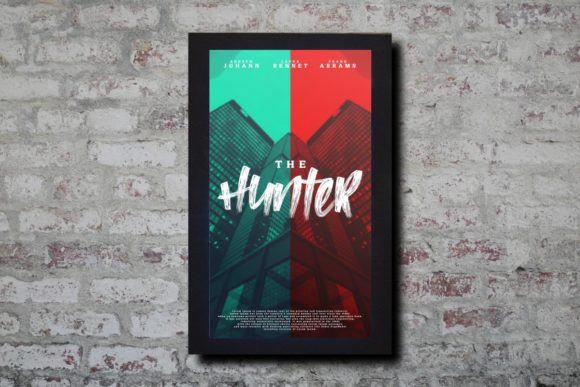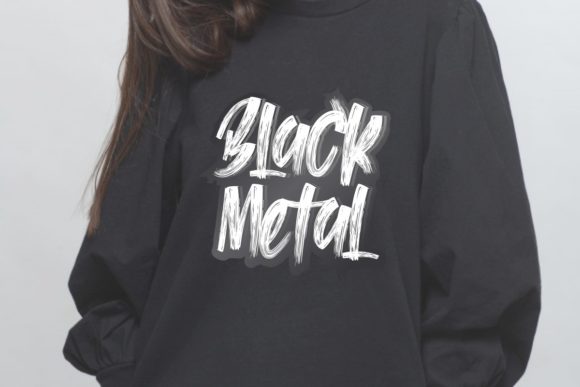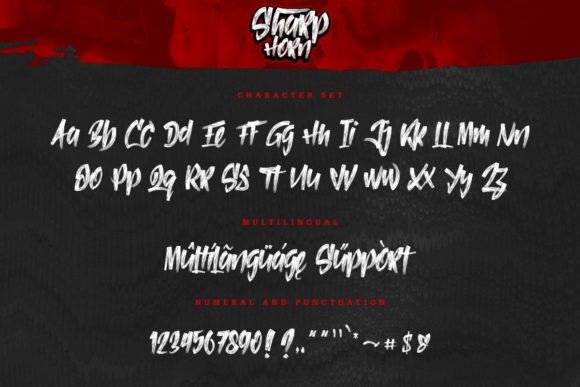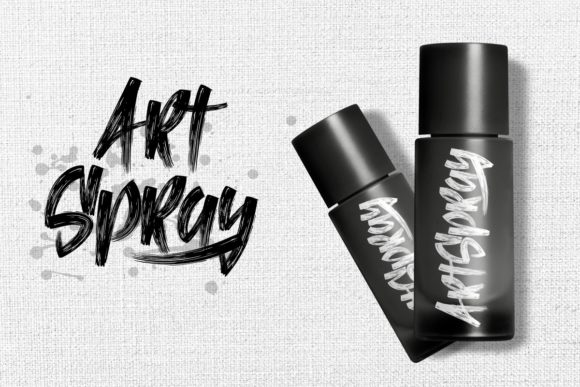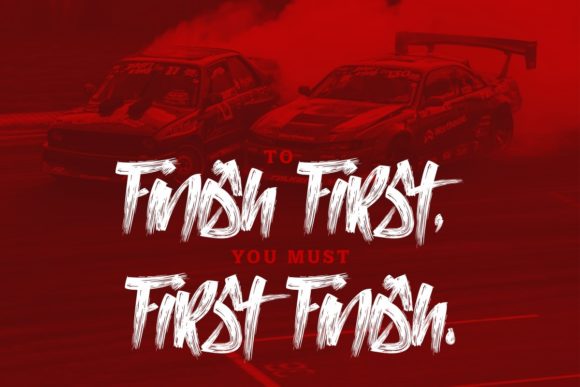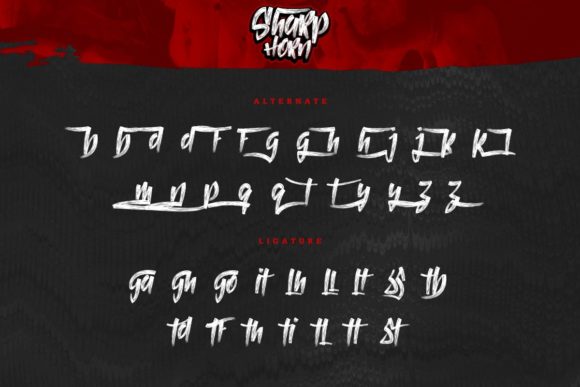
Introduction to SharpHorn Font Font
Fonts play a crucial role in design, and the SharpHorn Font font is a typeface that brings both character and versatility to any project. Whether you’re working on a branding project, a website, or a print design, the SharpHorn Font font offers a unique style that can elevate your work.
SharpHorn is a cool, brushed and urban styled display font.
It is PUA encoded which means you can access all glyphs and swashes with ease Add it confidently to your favorite creations and let yourself be amazed by the outcome generated.
Key Features of SharpHorn Font Font
Why Choose SharpHorn Font Font?
The SharpHorn Font font is more than just a typeface – it’s a design tool that helps you communicate your message with style and clarity. Its unique character set and versatile design make it suitable for a wide range of applications, from elegant invitations to bold headlines.
With its carefully crafted letterforms and balanced proportions, the SharpHorn Font font ensures readability and visual appeal across all mediums.
What makes SharpHorn Font font special?
The SharpHorn Font font stands out with its unique design, exceptional readability, and versatility across various design applications.